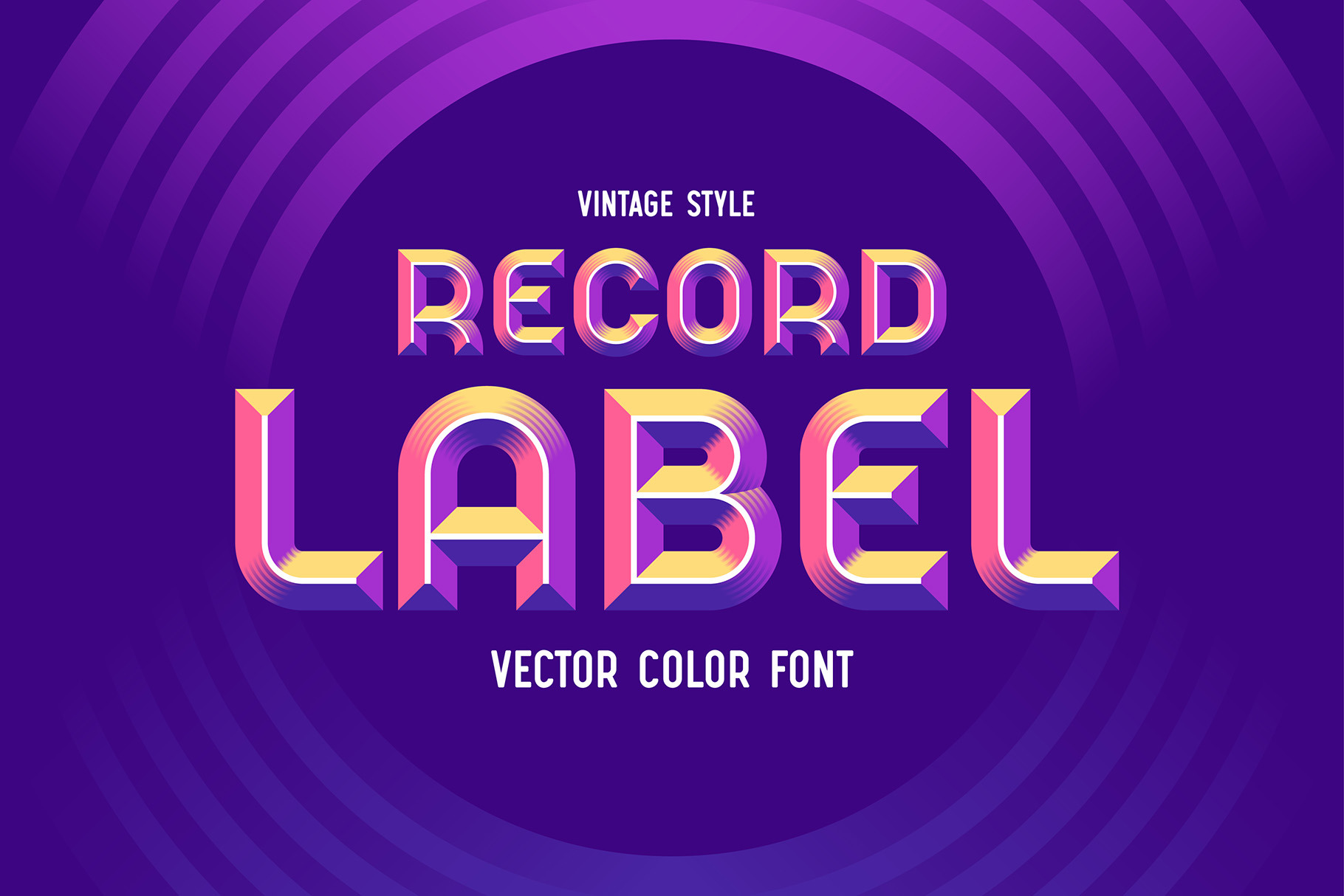
Record Label - Color Vector Font
Hello! Introducing a vector color font named Record Label. It's a vintage style all caps typeface with 3d bevel effect. Inspired by 70's disco culture, Record Label font looks better in big size, when all tiny gradient lines are visible. Also a separate vector letters in SVG format are included.